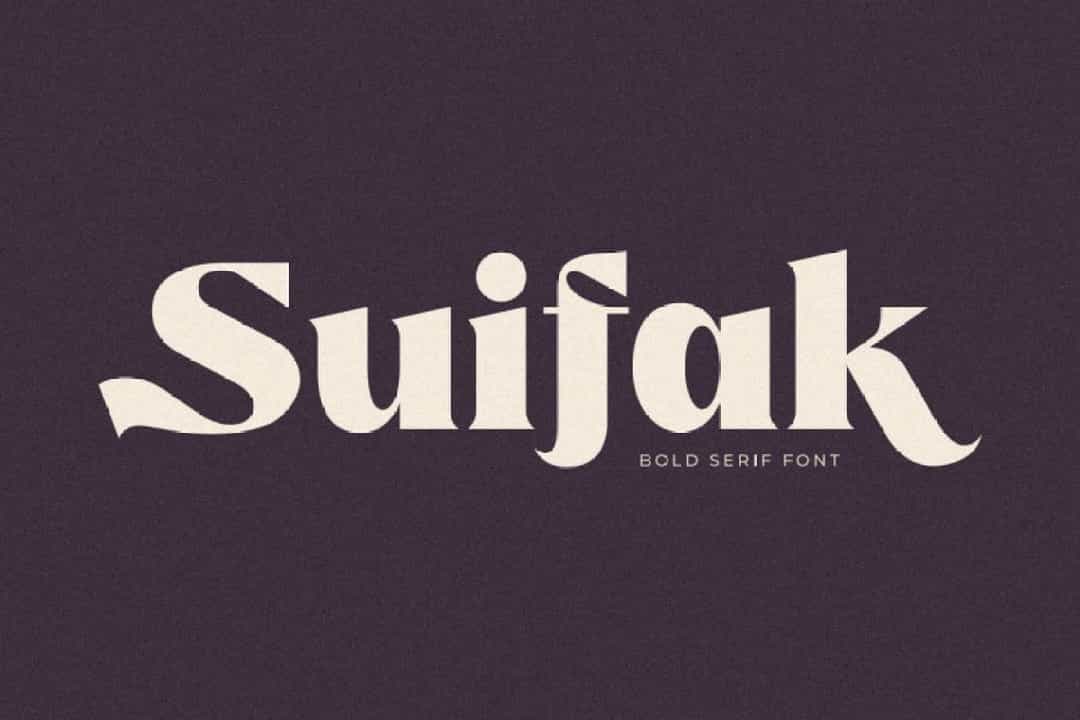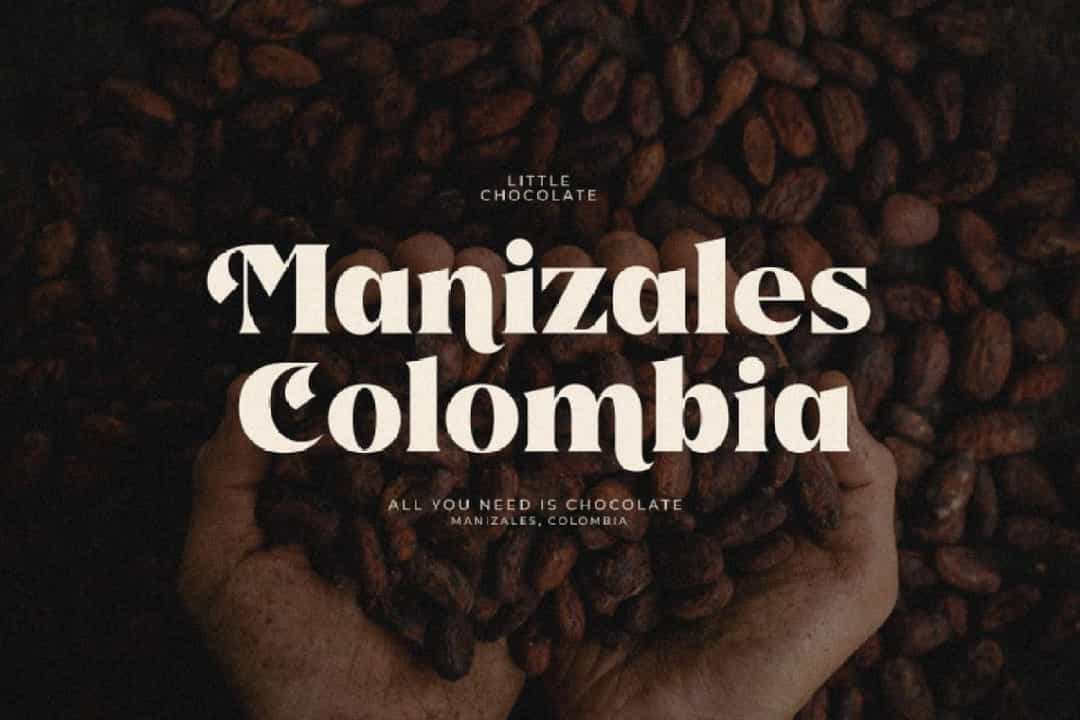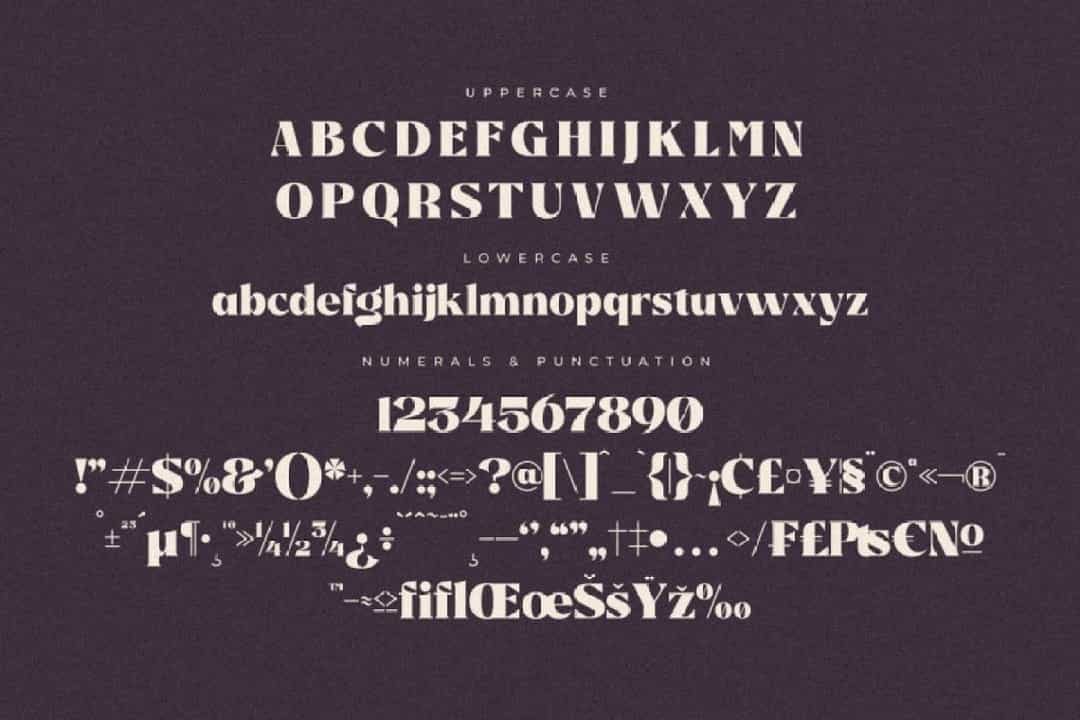
Suifak It is an elegant yet classic serif font, distinguished by its distinctive fashion and style. Perfect for creating classy logos, movie or book stylings, fashion label clothing lines, magazines with quotes or even lettering, Suifak is ideal for use as part of lettering based projects and lettering of all sorts.